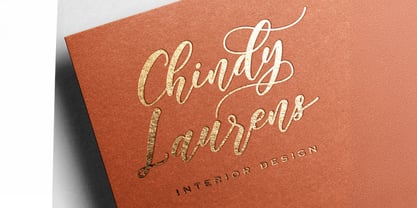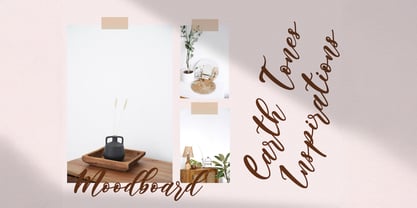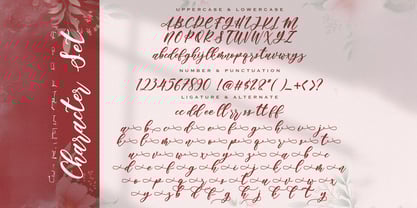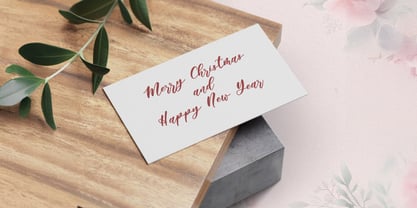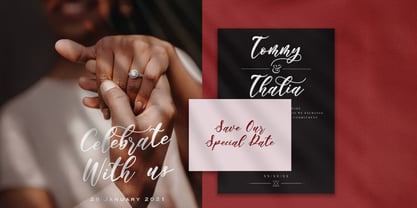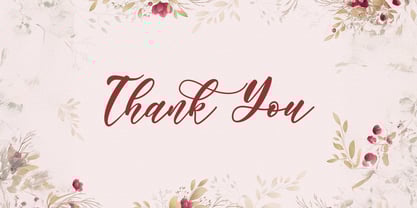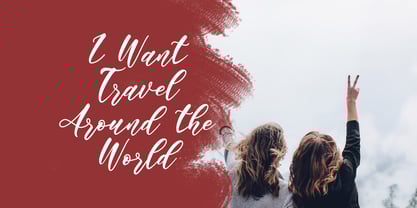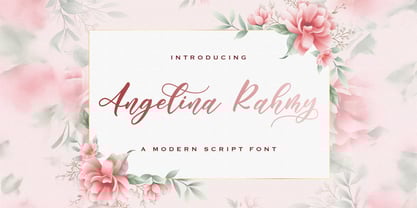
Angelina Rahmy
by Stringlabs Creative Studio
The Angelina Rahmy Font Family was designed by Virgiawan Listanto and published by Stringlabs Creative Studio. Angelina Rahmy contains 1 styles. More about this family
Angelina Rahmy is a modern script font that blends timeless elegance with a clean, contemporary flair. With its flowing strokes, stylish curves, and refined details, Angelina Rahmy brings sophistication and femininity to any project, perfect for designers who want their work to feel effortlessly graceful.
Designers: Virgiawan Listanto
Foundry: Stringlabs Creative Studio